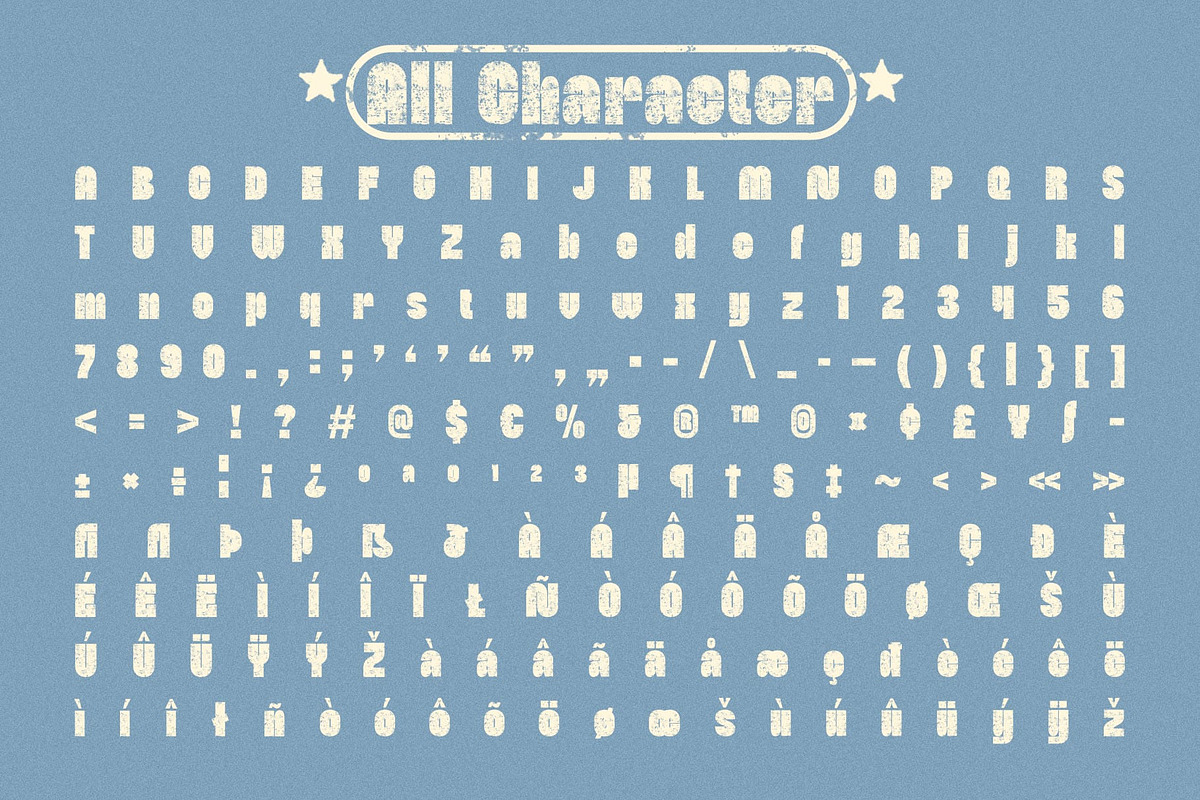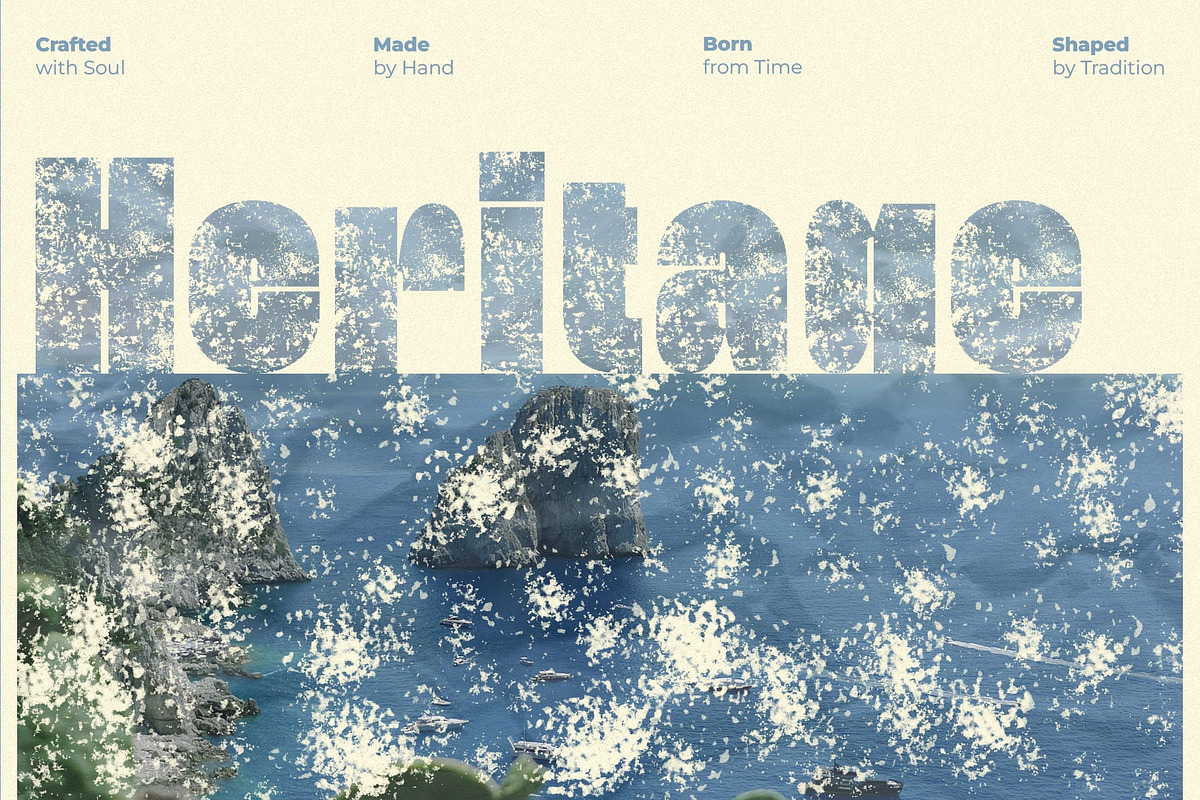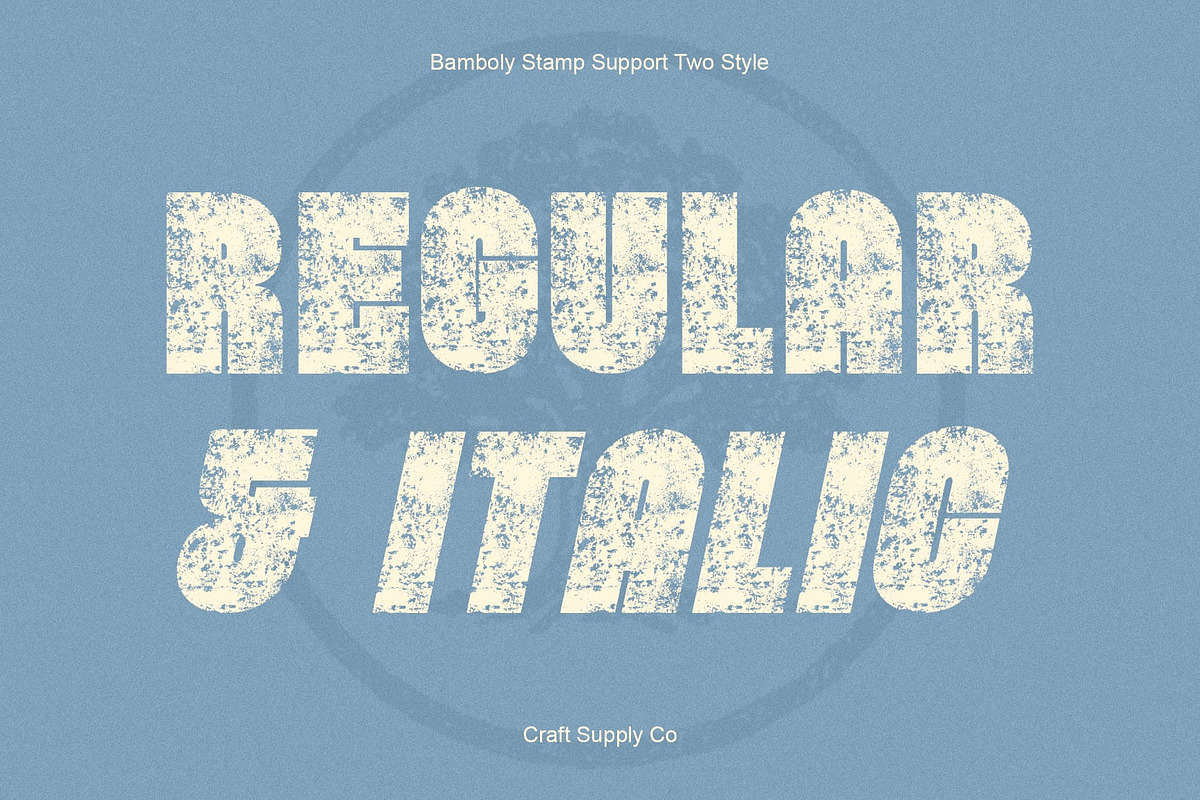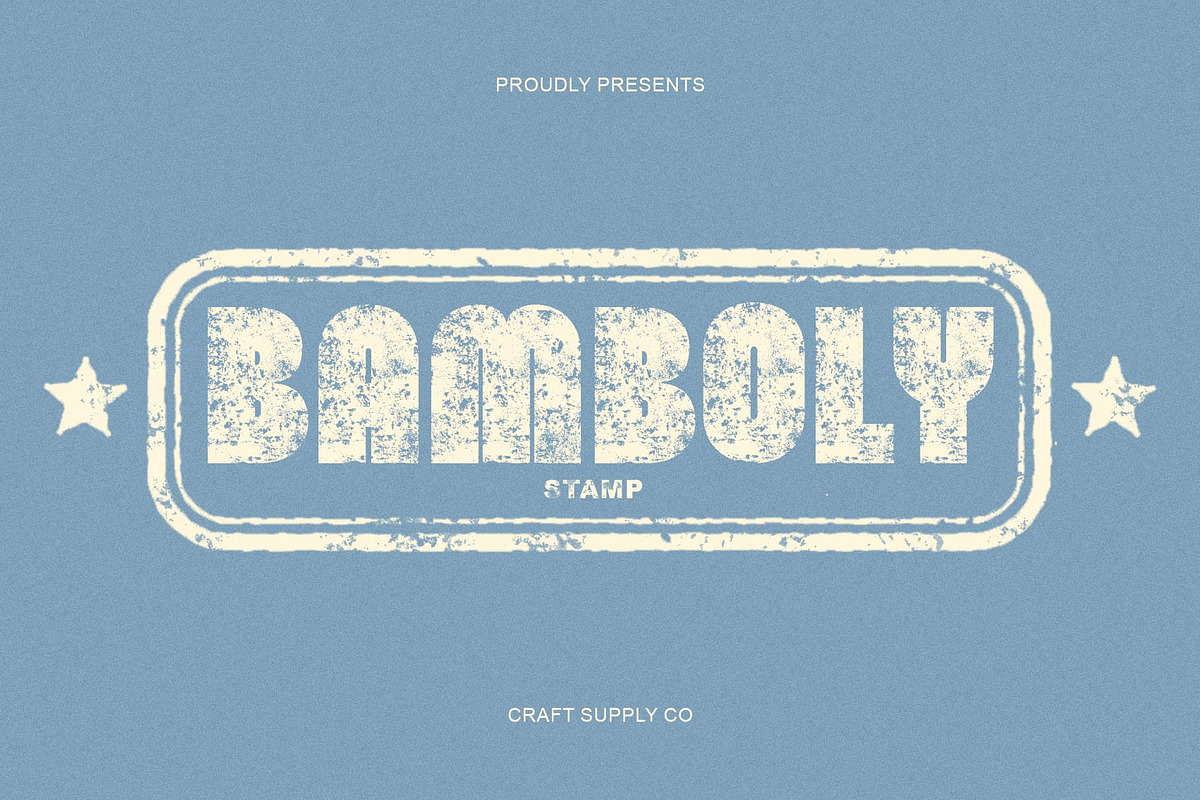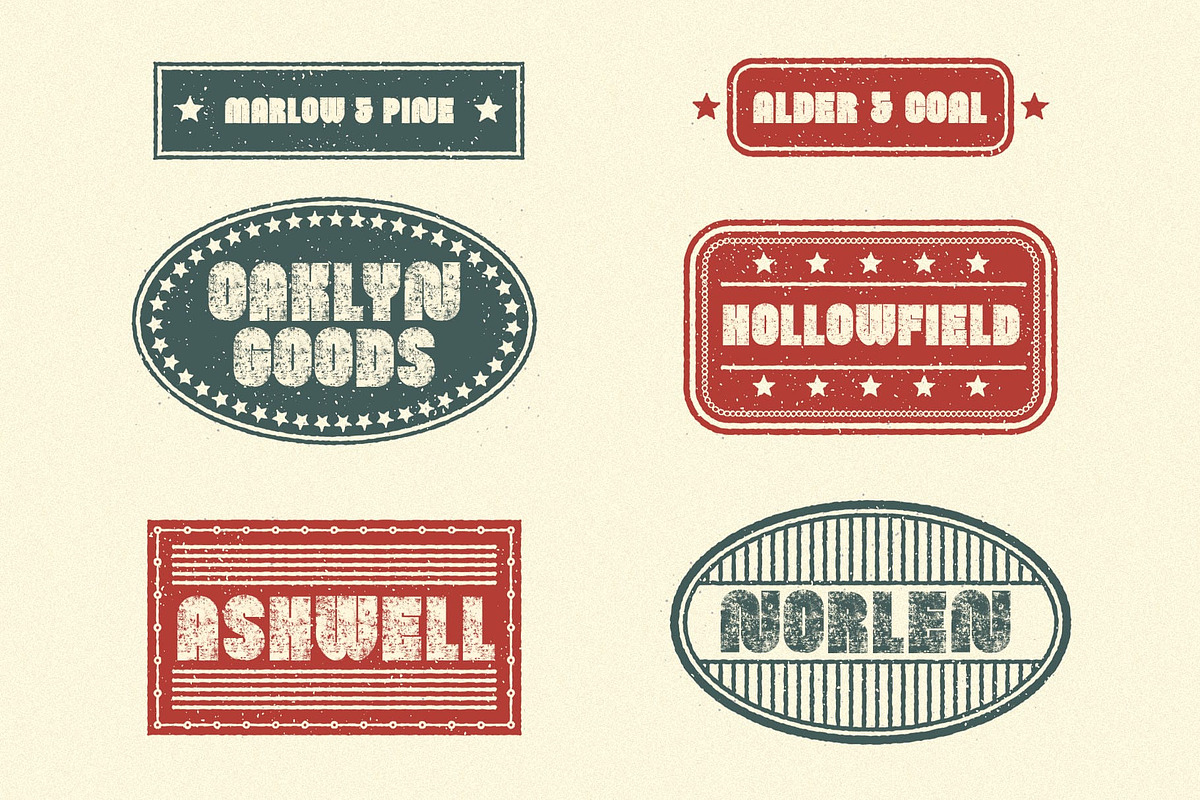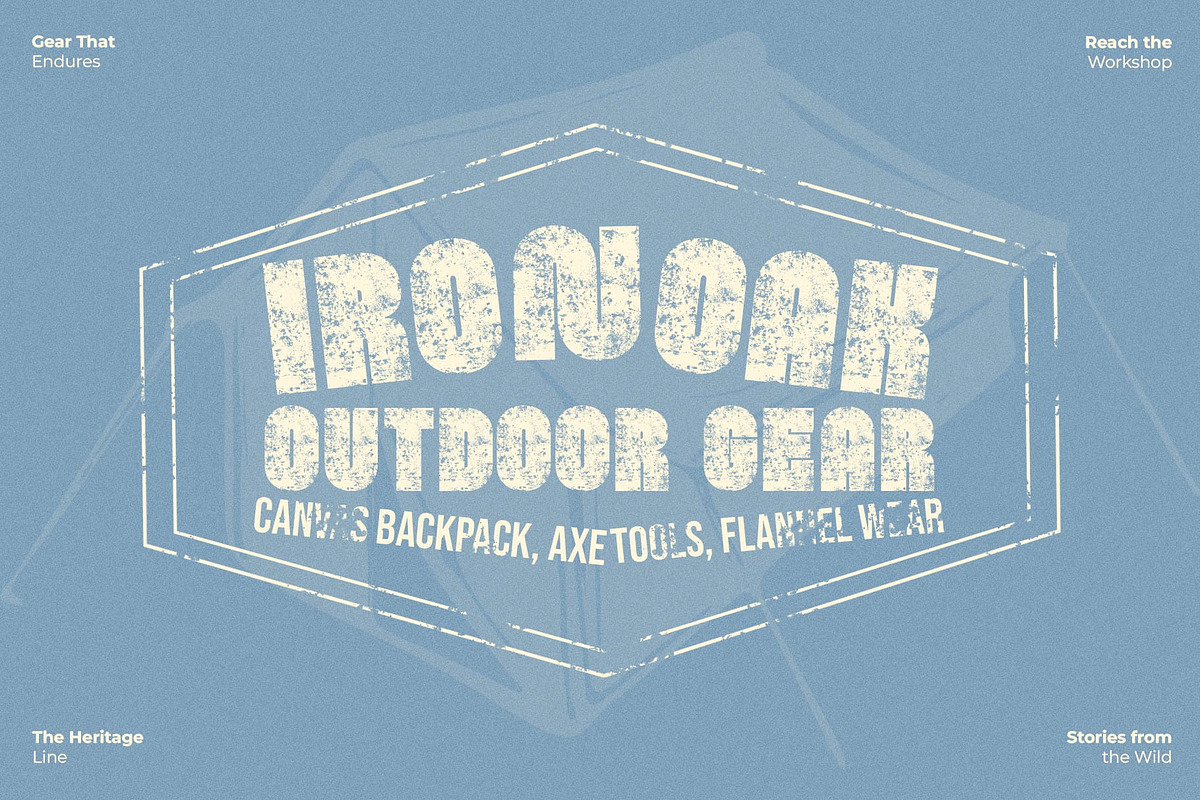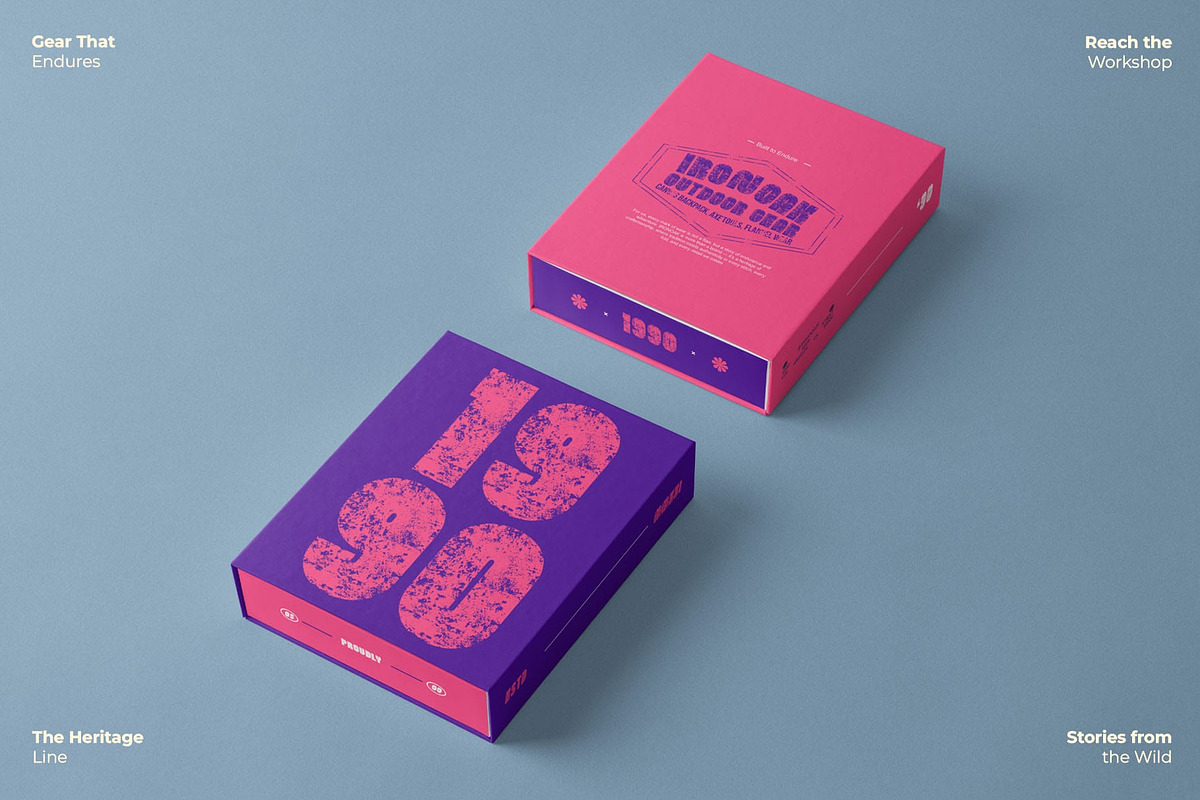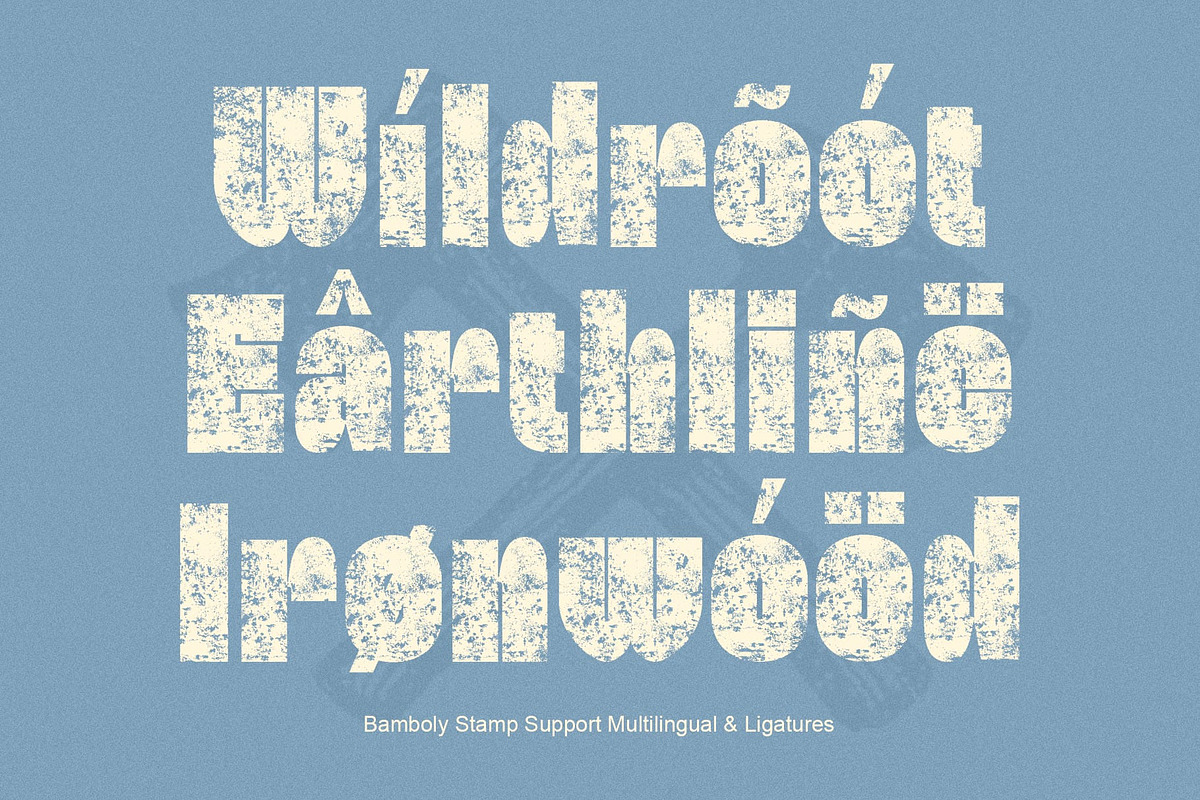
Bamboly Stamp
Bamboly Stamp: Bold Character with Retro Strength
Condensed Sans Serif with Chunky Appeal This is a bold sans serif display font that merges chunky, powerful letterforms with a condensed modern structure. Its clean and confident design brings clarity and impact to any composition, making it a perfect choice for headlines, posters, and branding that demand attention.
Stamp Texture for Authentic Depth The stamp texture adds a tactile, handmade quality that enhances its visual character. This distressed effect infuses a vintage, time-worn expression, making each letter feel organic and full of personality perfect for editorials, packaging, or creative identity projects.
Retro Aesthetic with a Modern Edge Balancing retro inspiration with modern precision, this font evokes both nostalgia and contemporary flair. Its bold forms and clean geometry make it versatile across themes whether you’re designing for fashion, music, or cultural branding, it brings a strong, stylish presence.
Perfect for Expressive and Impactful Design With its chunky shapes, condensed proportions, and vintage-stamped finish, this font delivers a retro yet unconventional style that ensures every design feels distinct, expressive, and full of visual energy.